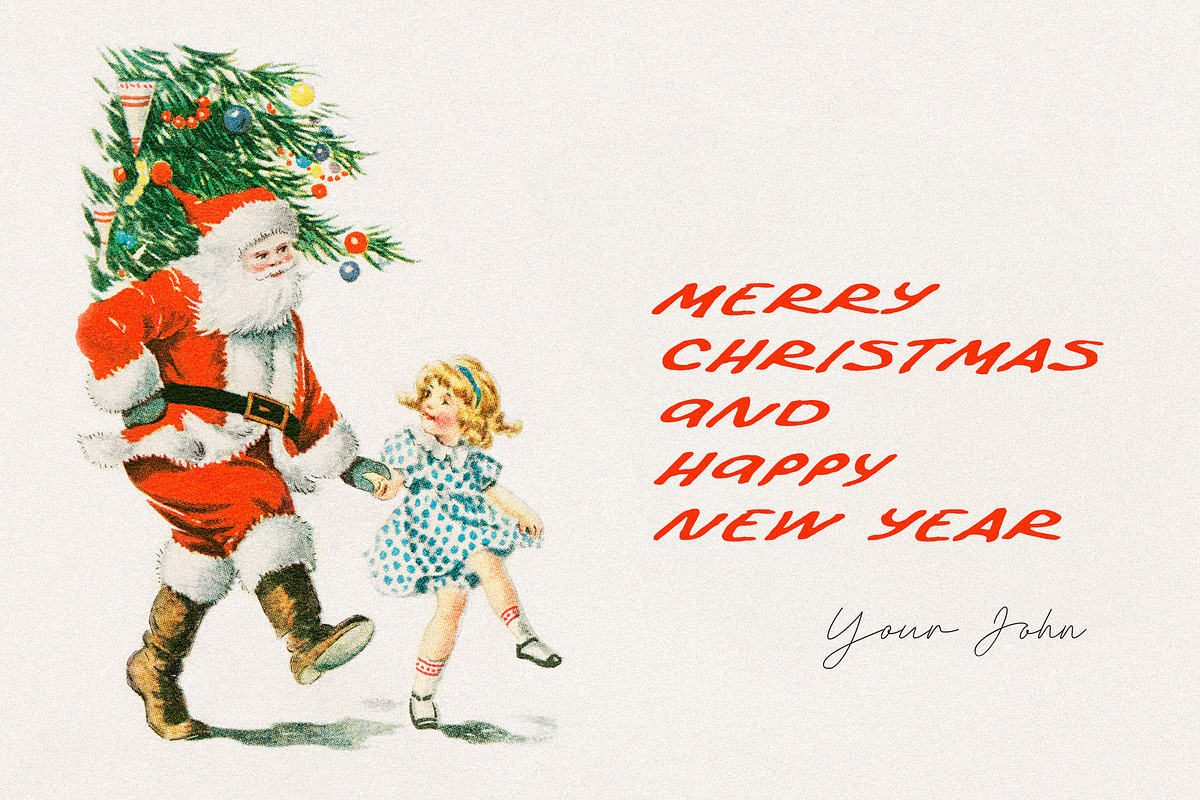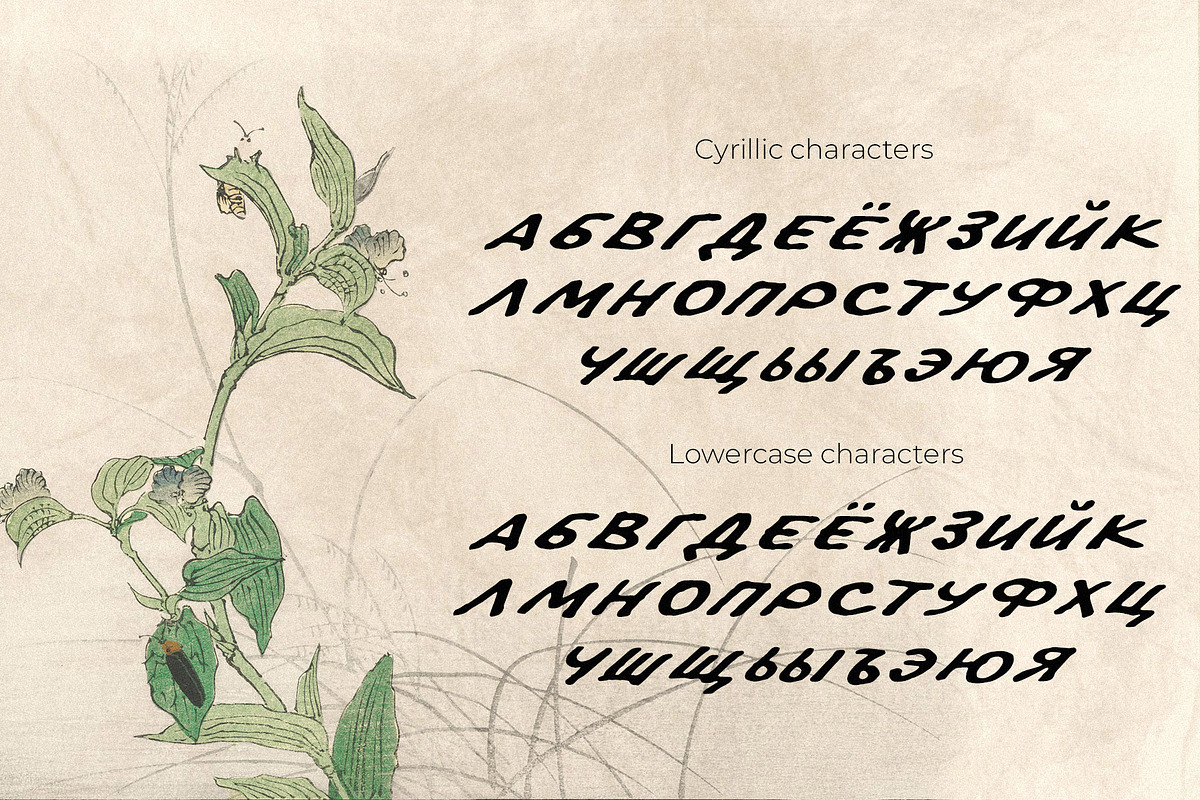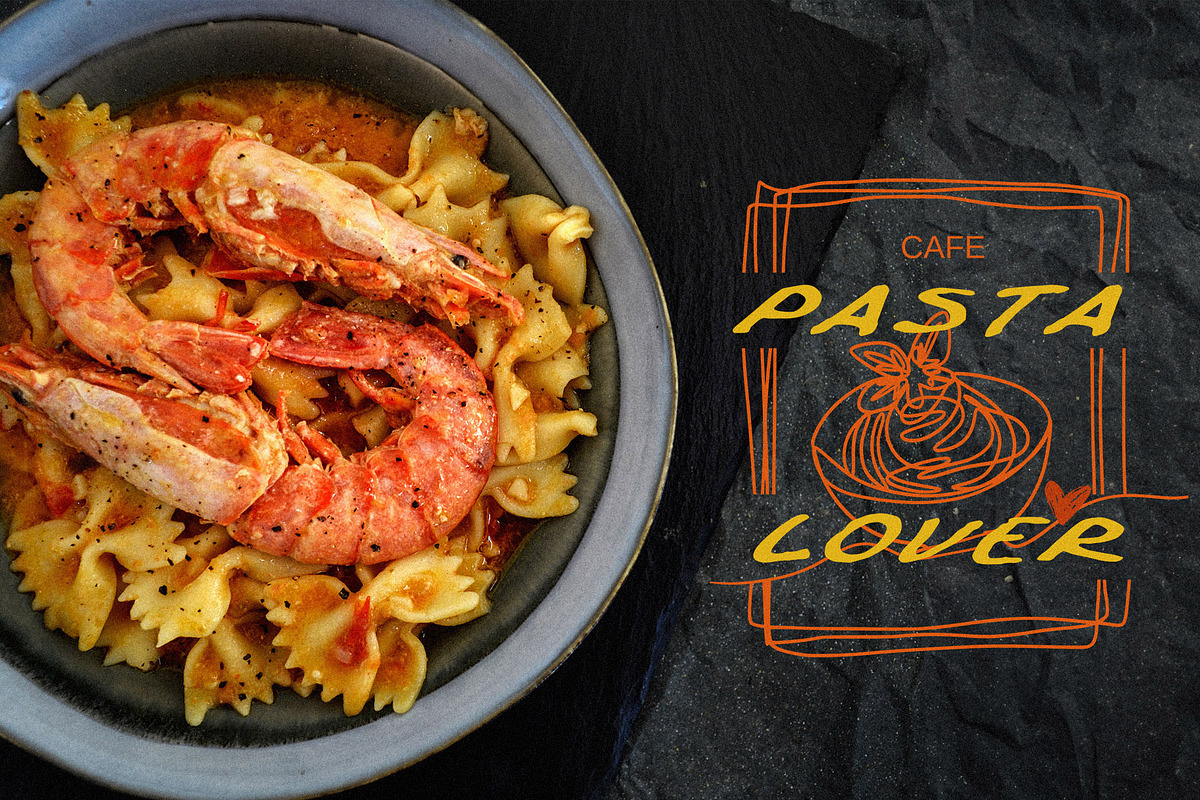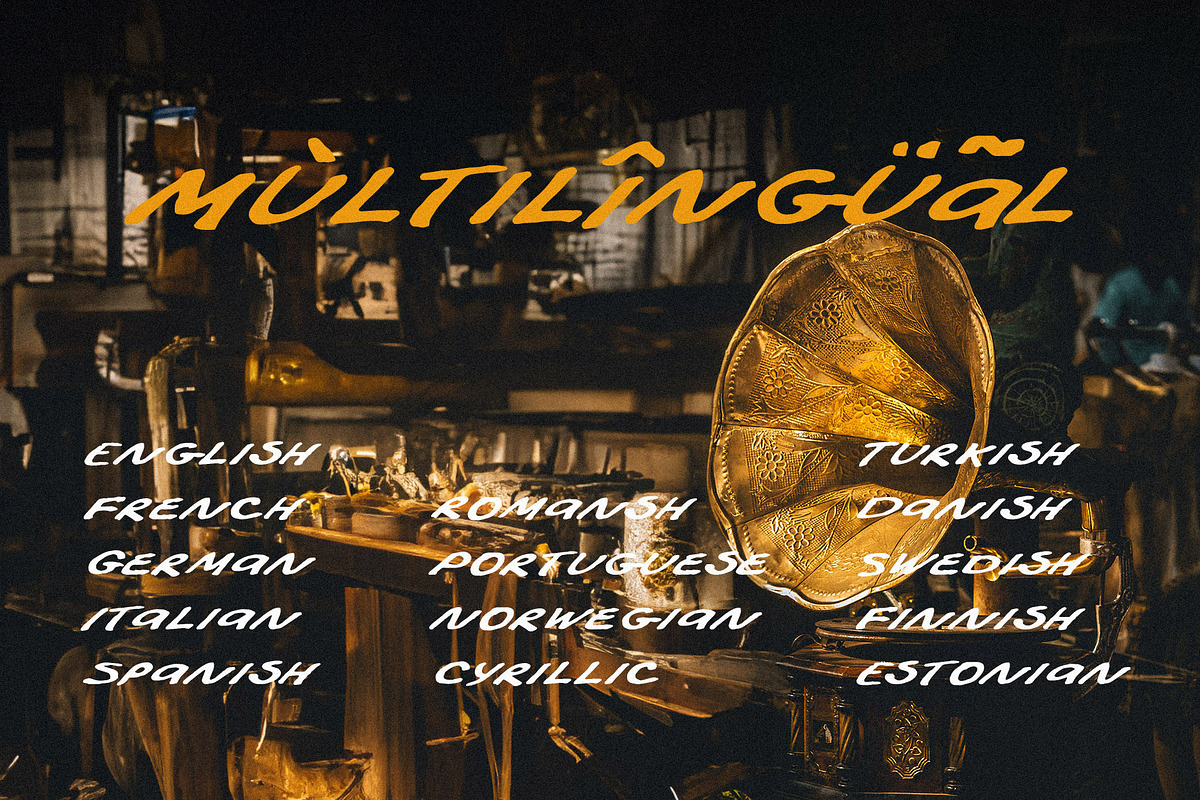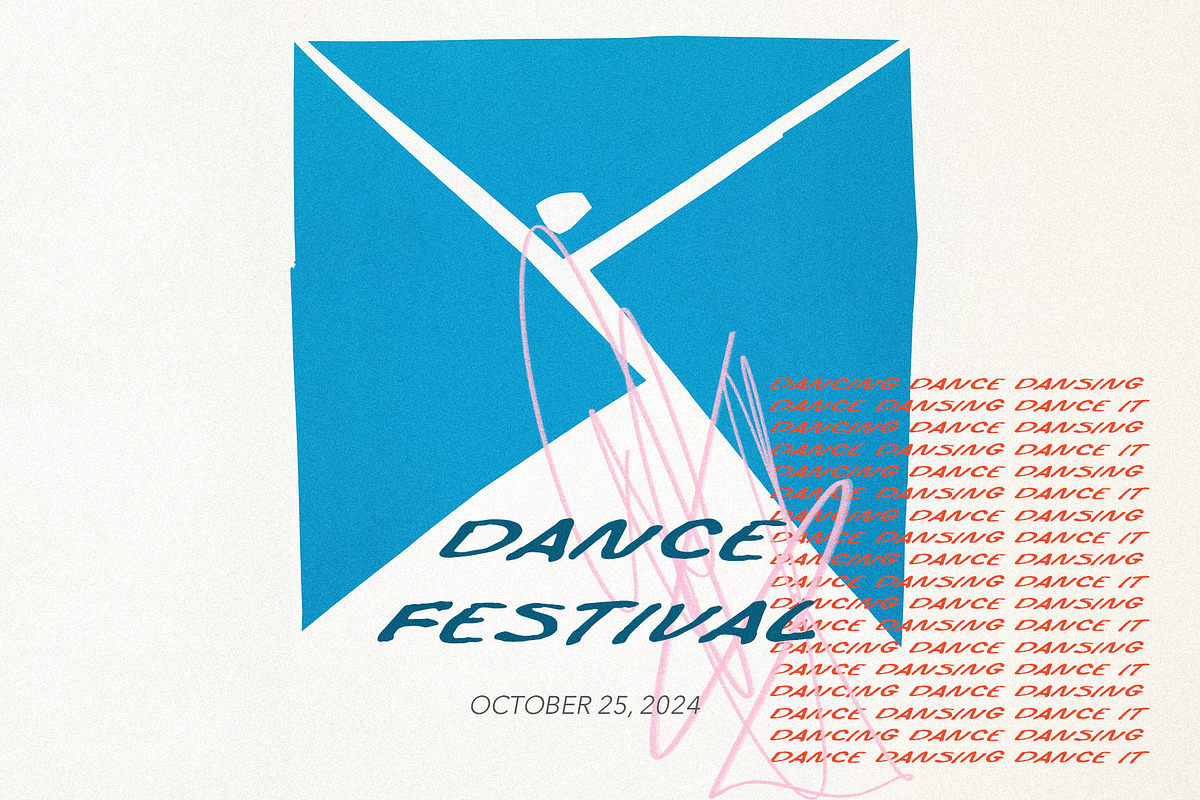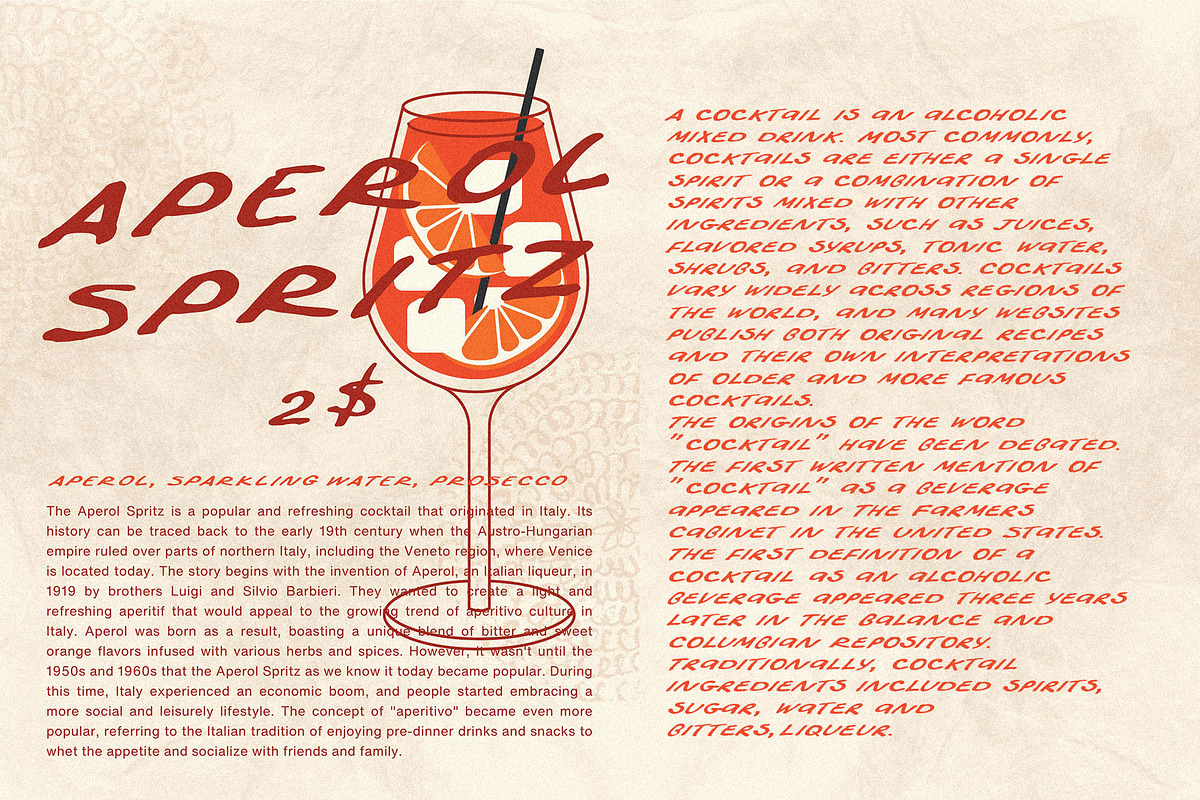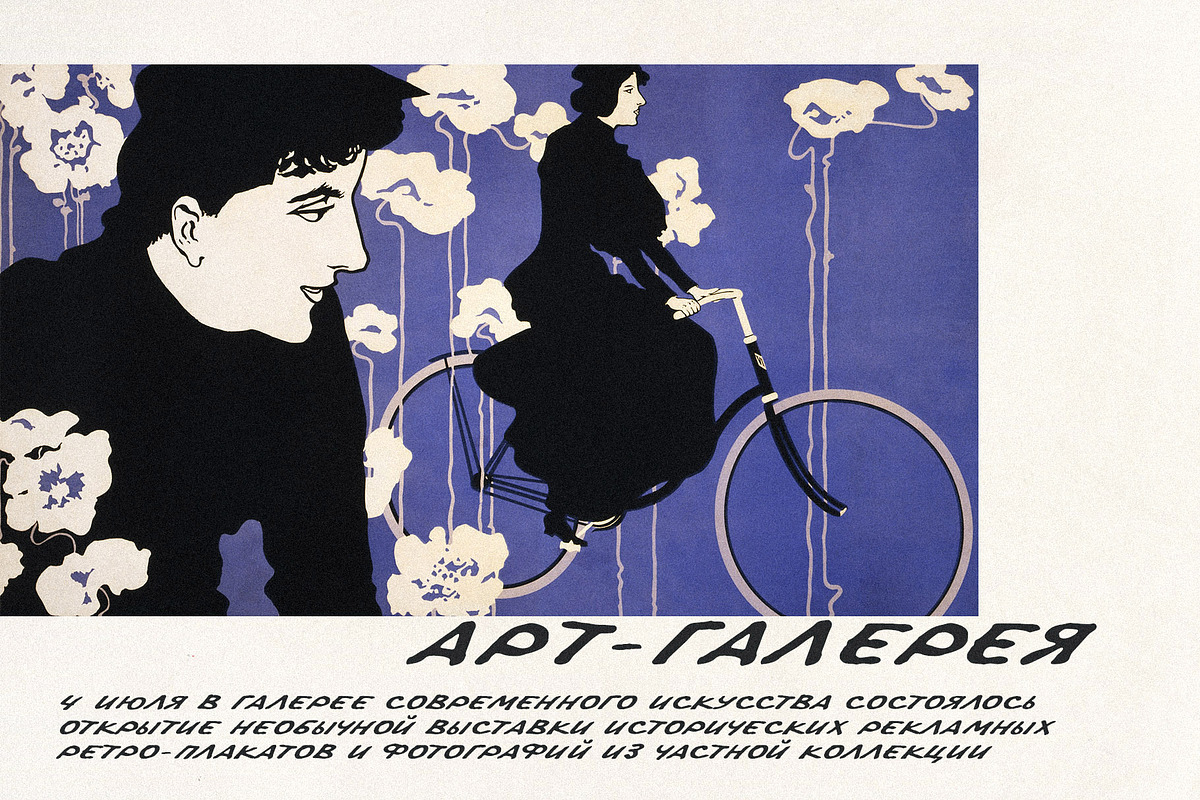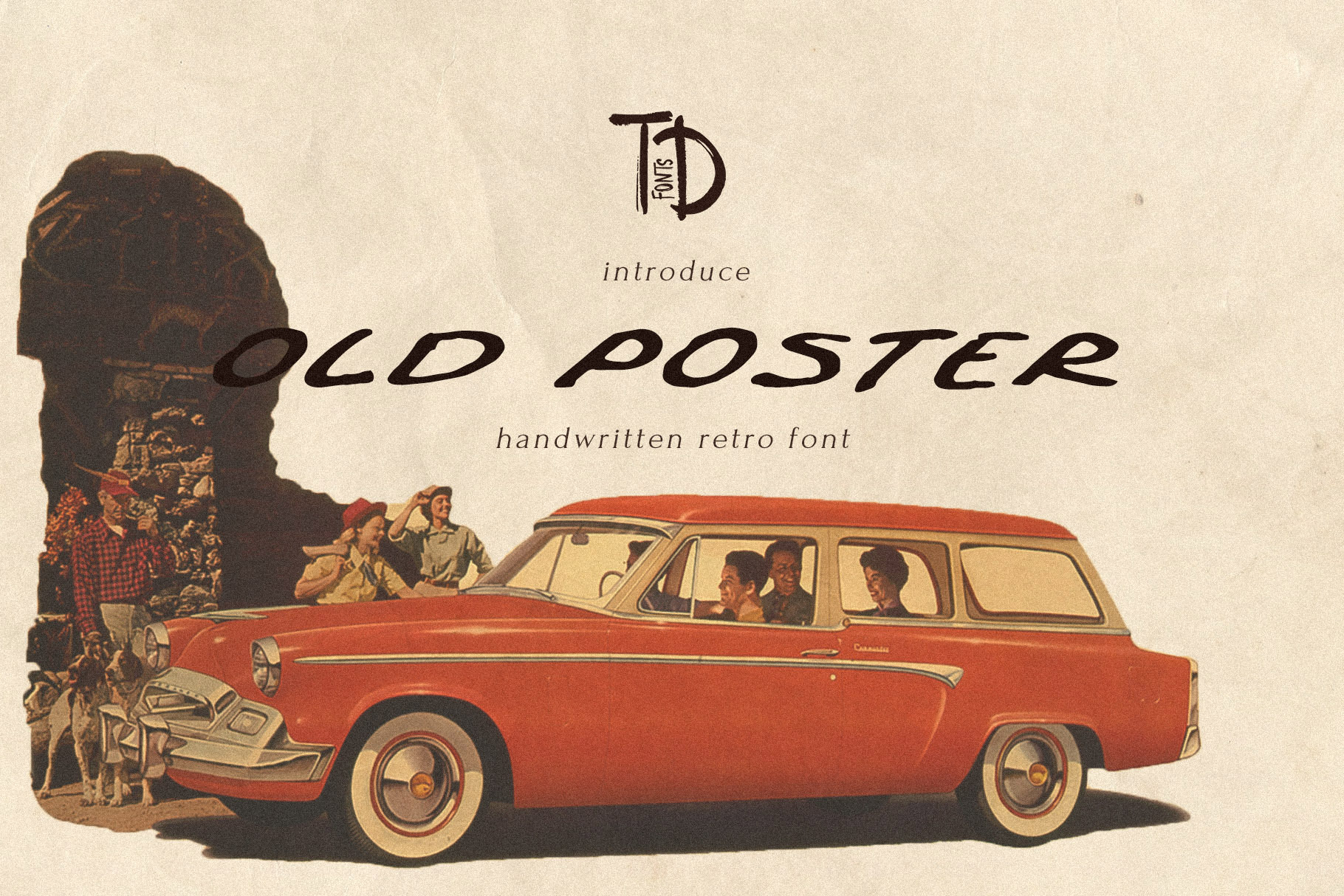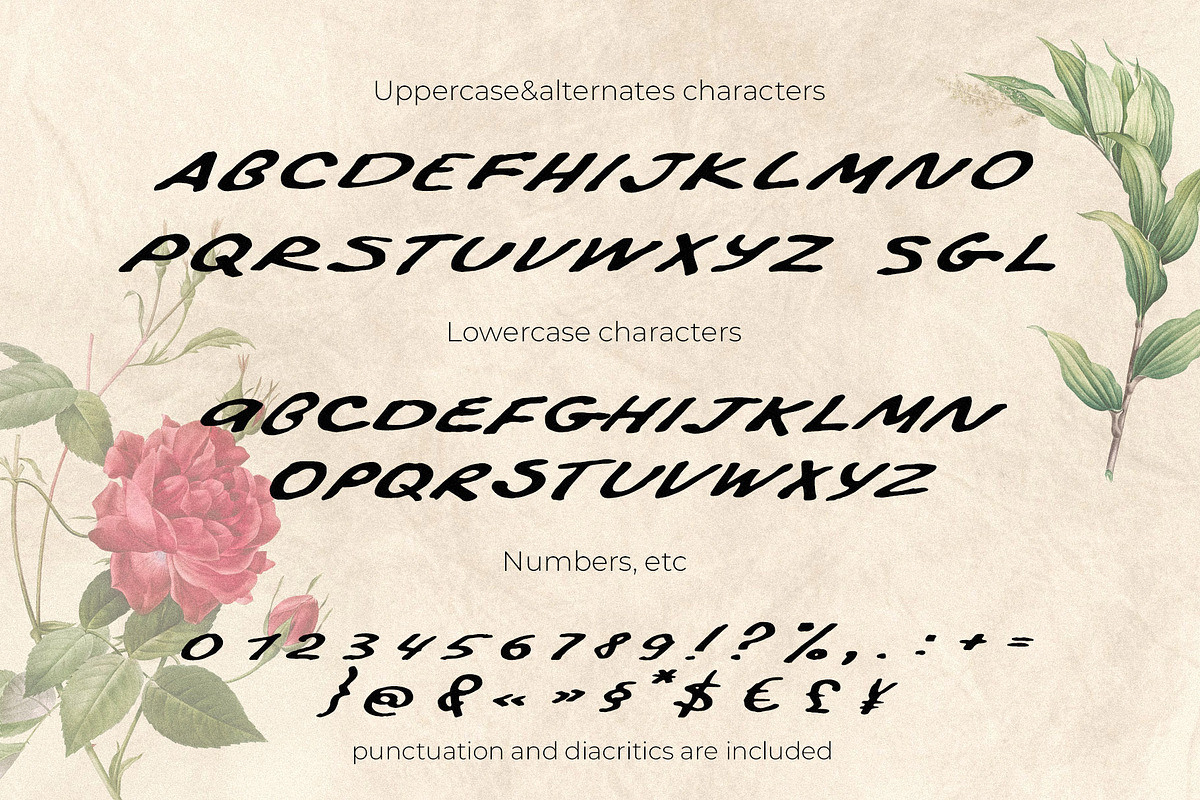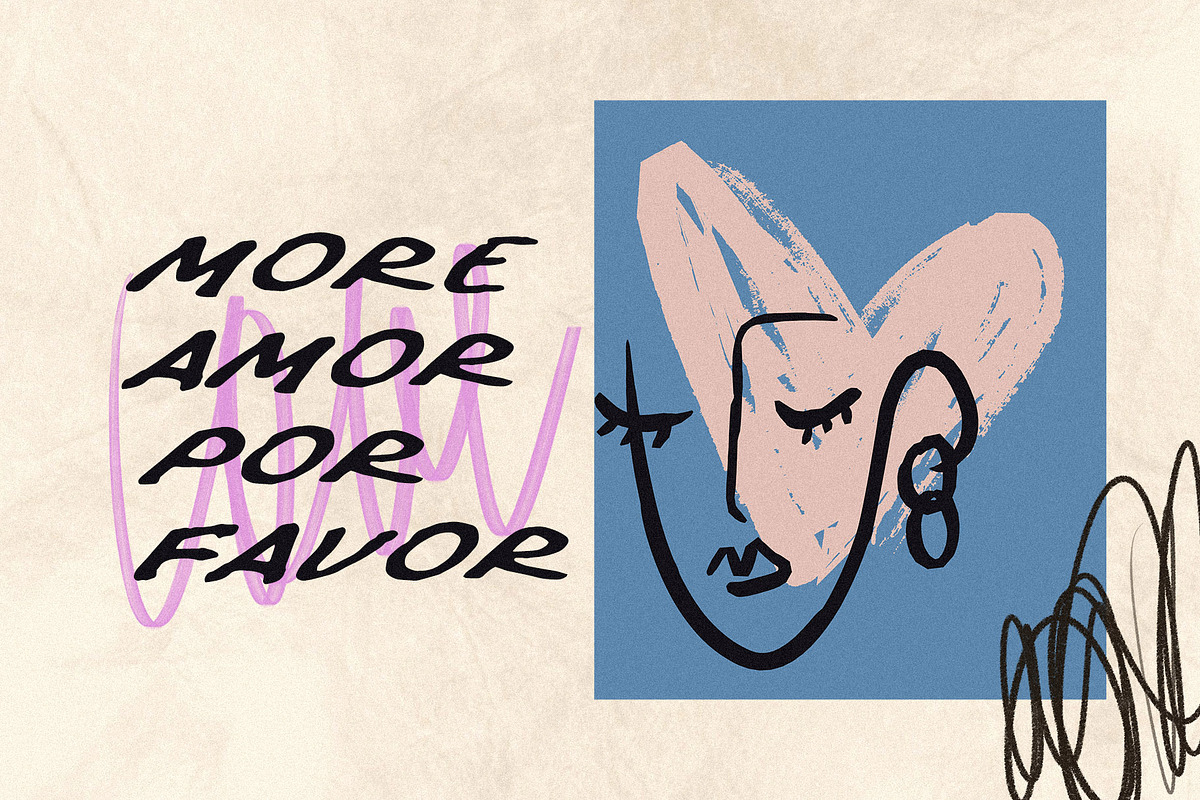
Old Poster handwritten retro font
Introducing Old Poster, a handwritten retro sans serif font inspired by the aesthetics of inscriptions on old posters. Supports many languages, including Cyrillic. This accidental font is ideal for branding projects, weddings, social media posts, advertising, product packaging, labels, photos, invitations and any other design project that requires adding the effect of hand writing and retro vibe.
Old Poster is a universal font that can be used for a variety of projects. For business, it can be used to create branding and marketing materials, website design and products. For designers, this is an ideal choice for creating retro design and adding accents to the text of any project.
Old Poster has extensive language support, it includes English, French, German, Italian, Spanish, Portuguese, Danish, Norwegian, Swedish, Finnish, Estonian, Romansh, Turkish, Cyrillic. Need to know if your language is supported? Type any words in the text box below and see if all characters you need are there.